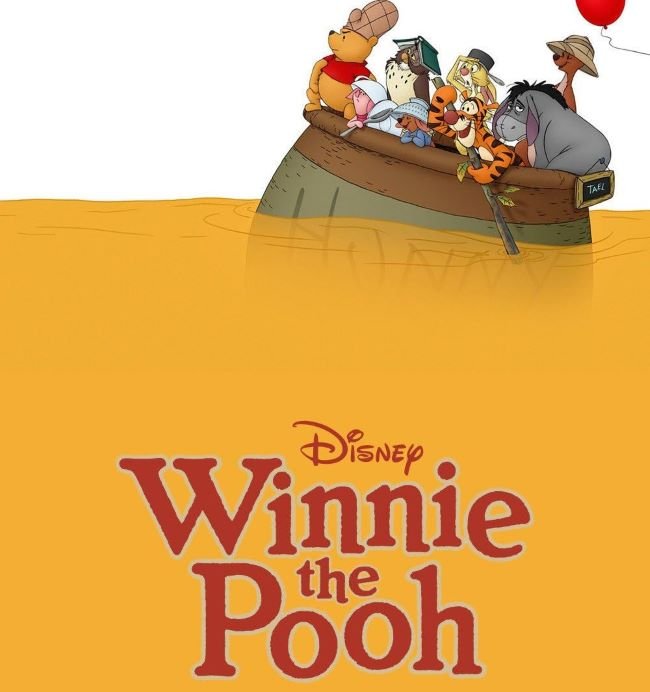
Winnie The Pooh Font is a soft rounded children’s display font that captures the gentle, storybook warmth of A.A. Milne’s beloved characters — Pooh, Piglet, Eeyore, Tigger, and the rest of the Hundred Acre Wood gang — first introduced in 1926 and subsequently adopted by Disney into one of its most enduring and commercially significant franchises. Its rounded, slightly wobbly letterforms communicate the essential quality of these stories: that the world is a safe and kind place full of small adventures and genuine friendship, and that even the most uncertain days end with honey and company.